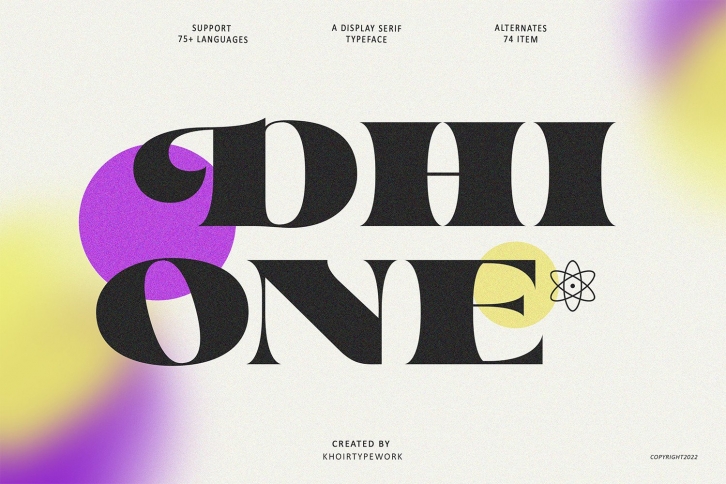
Dhione is a chic and bold display font. Contemporary and fresh, it is perfect for any design you wish to create. Add it to your creative projects and make them outstanding!